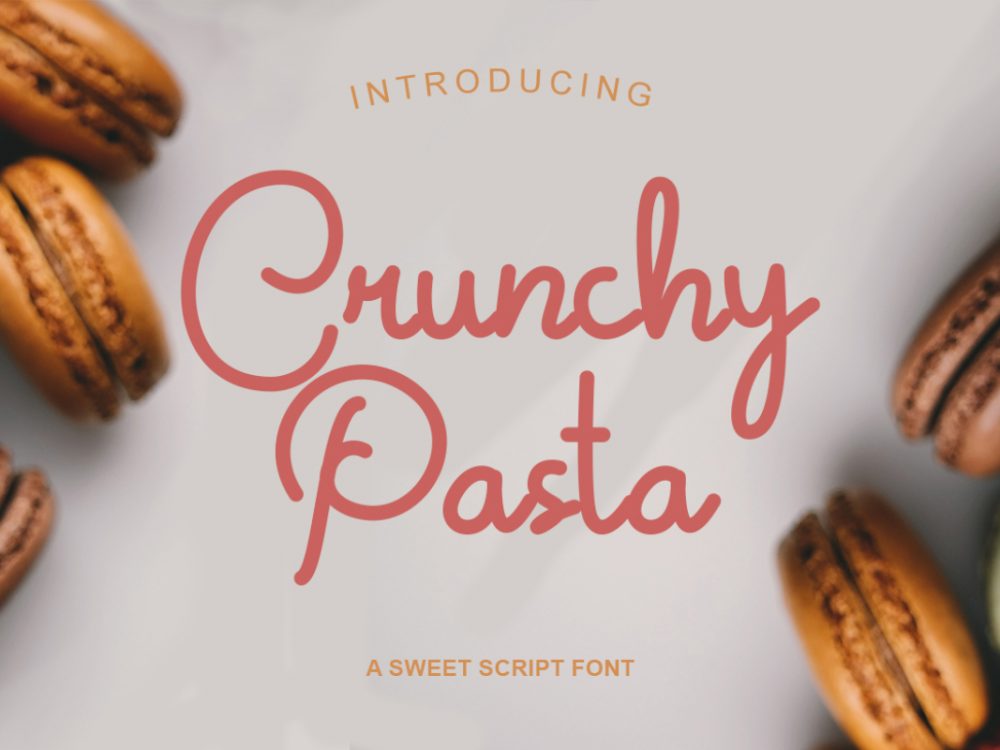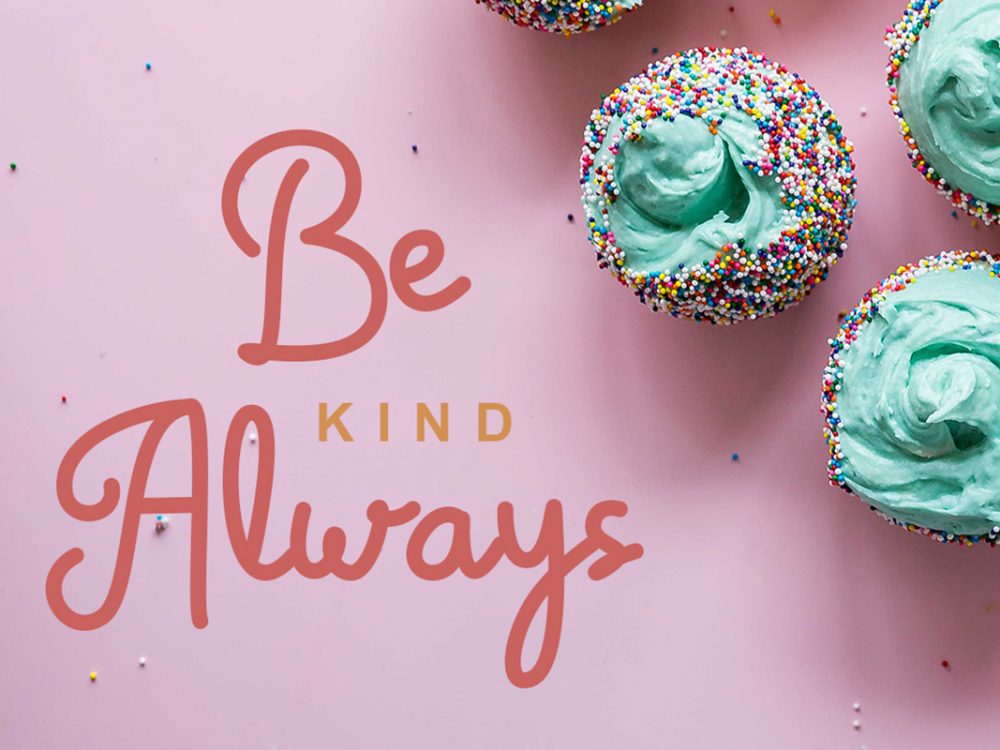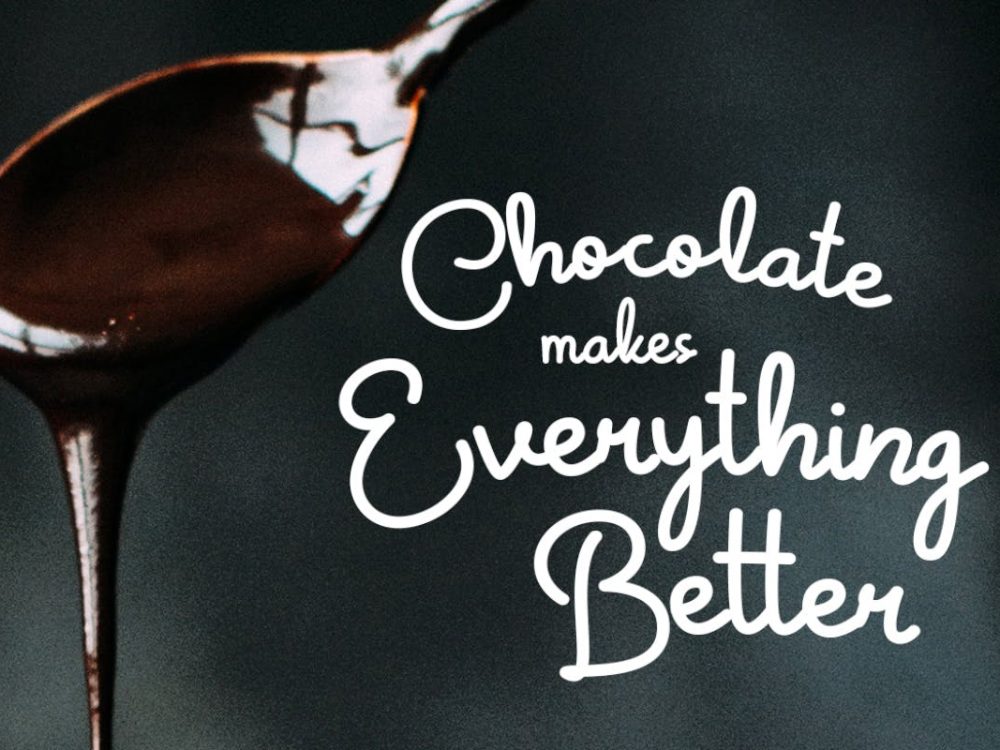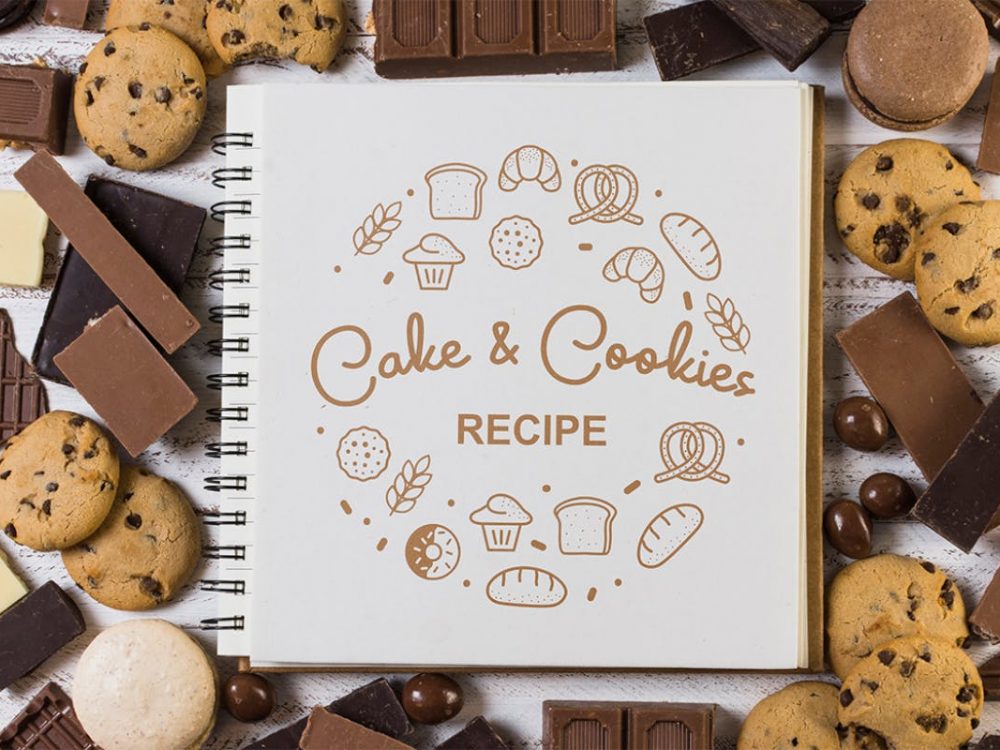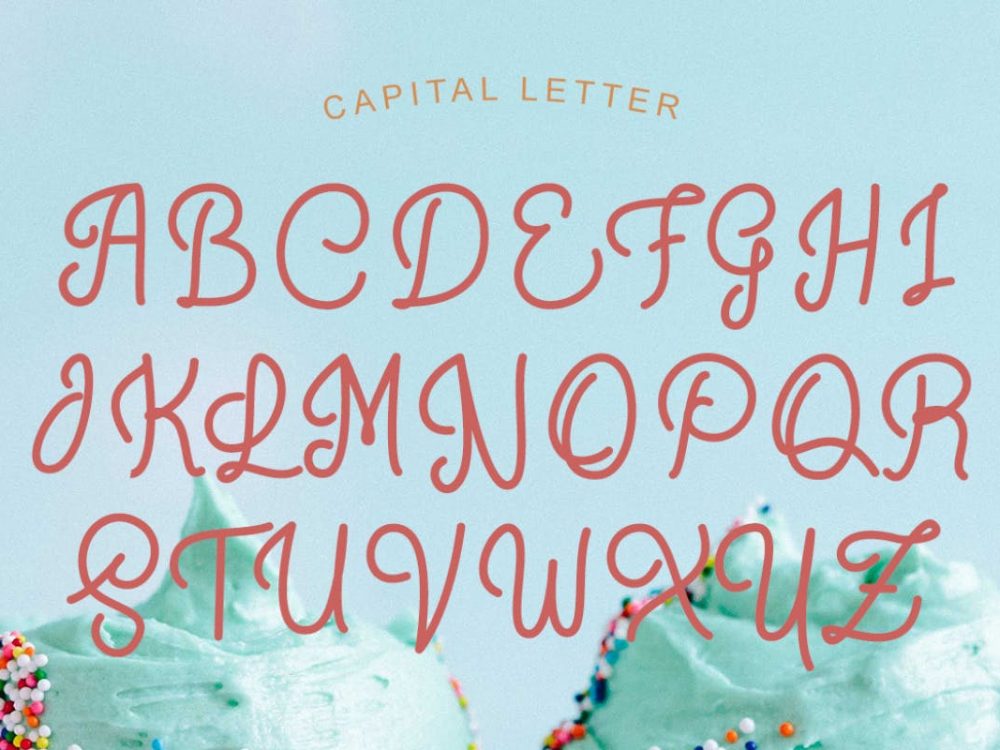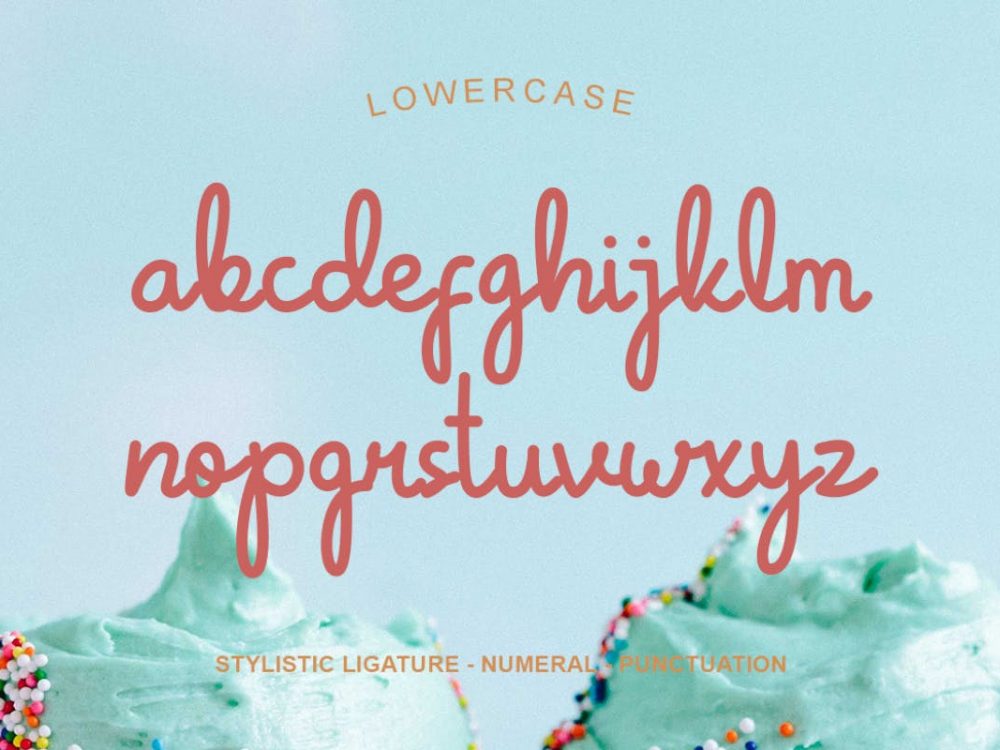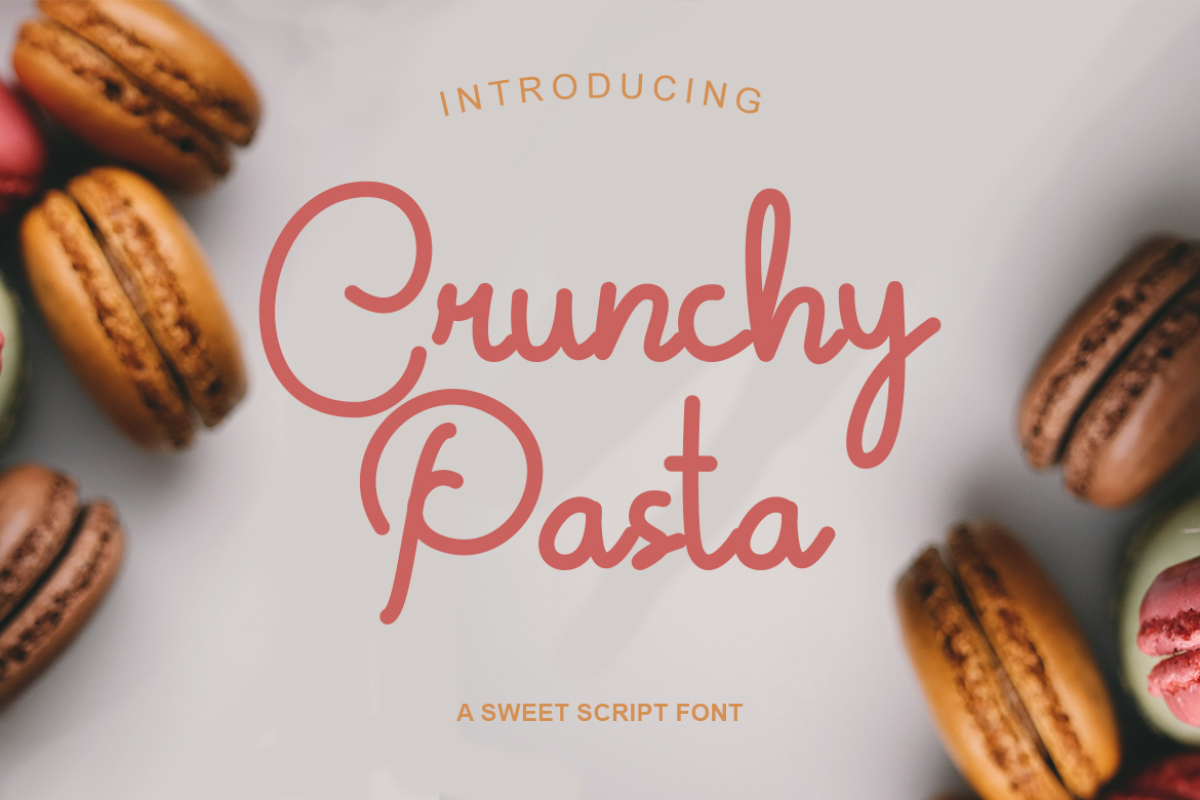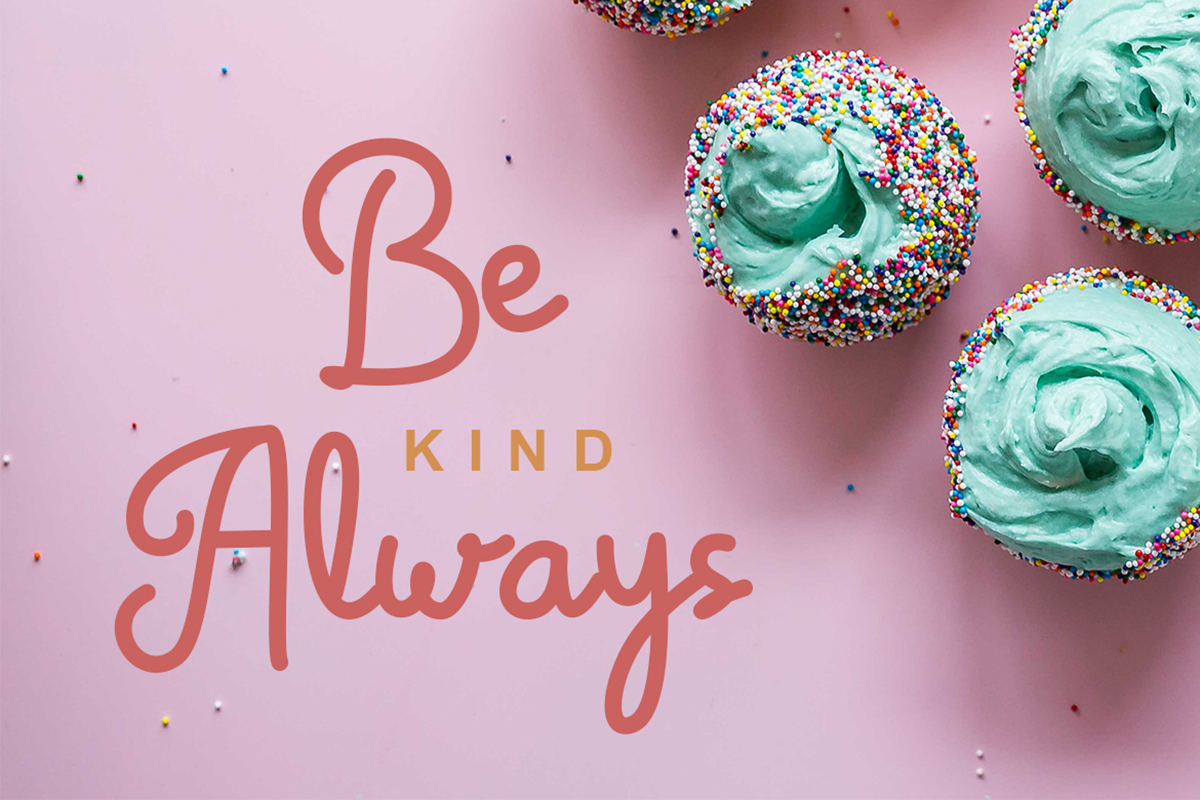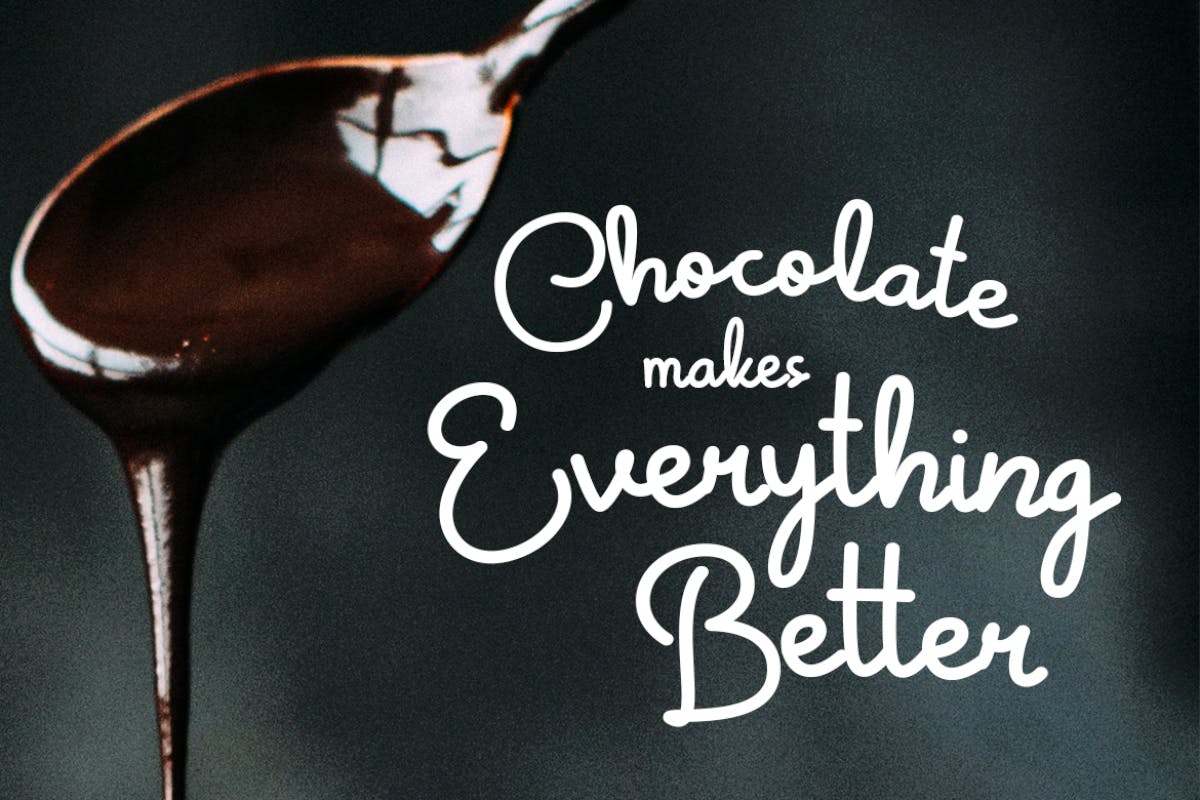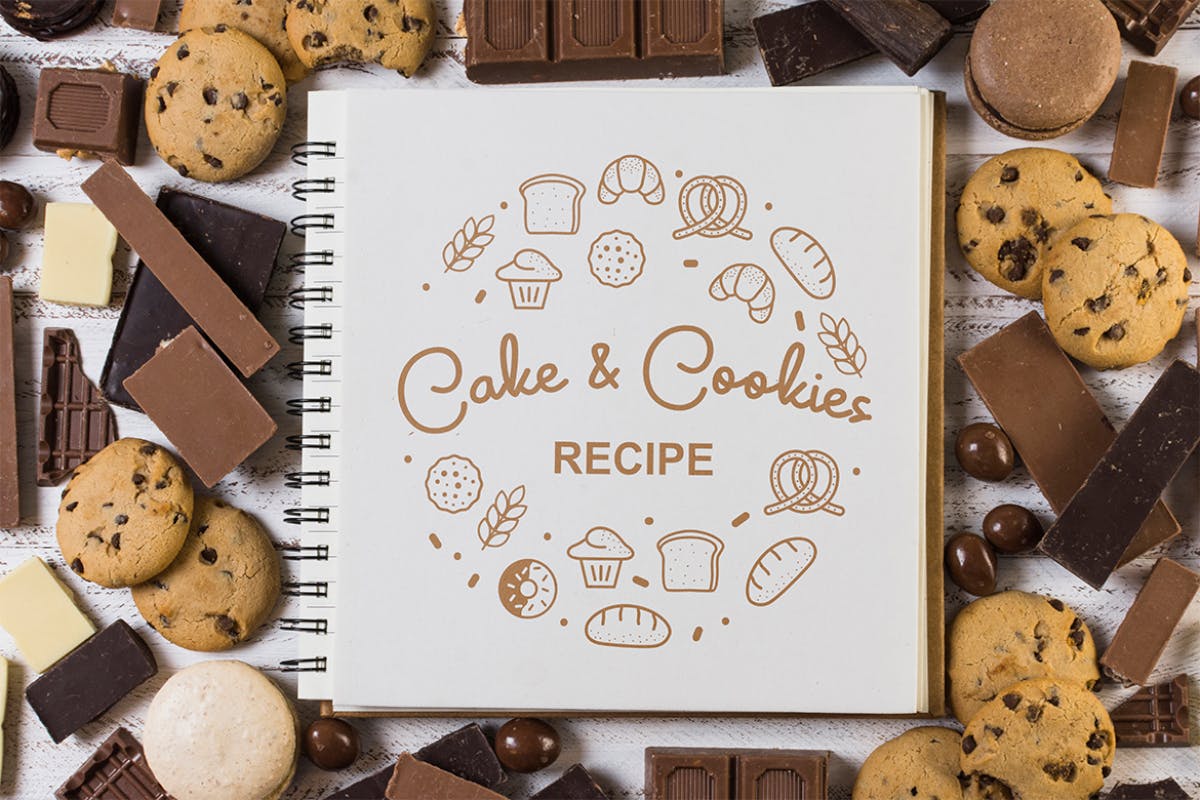
Free Crunchy Pasta Script Font
Free Crunchy Pasta Script Font is a memorable and interesting handwritten font that sets itself apart from other fonts in its elegant calligraphic style. This font is presented in a demo version and will help you create unique design projects and improve your professional level. Use this font to create memorable posters, wedding invitations, cards, branding, flyers, and more.